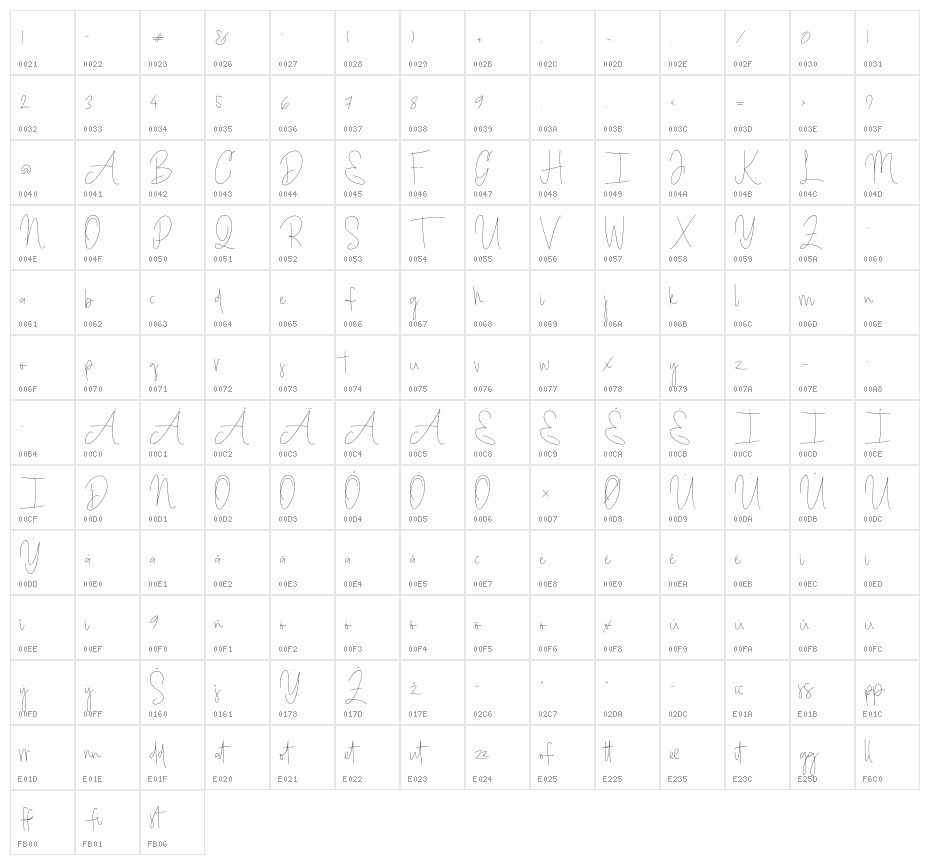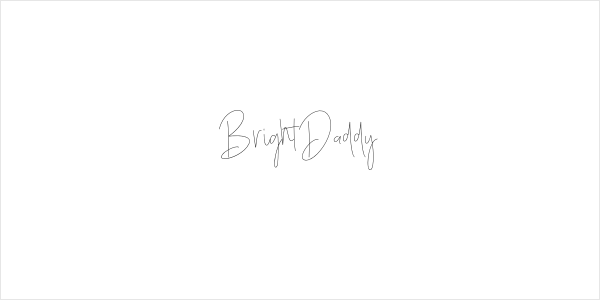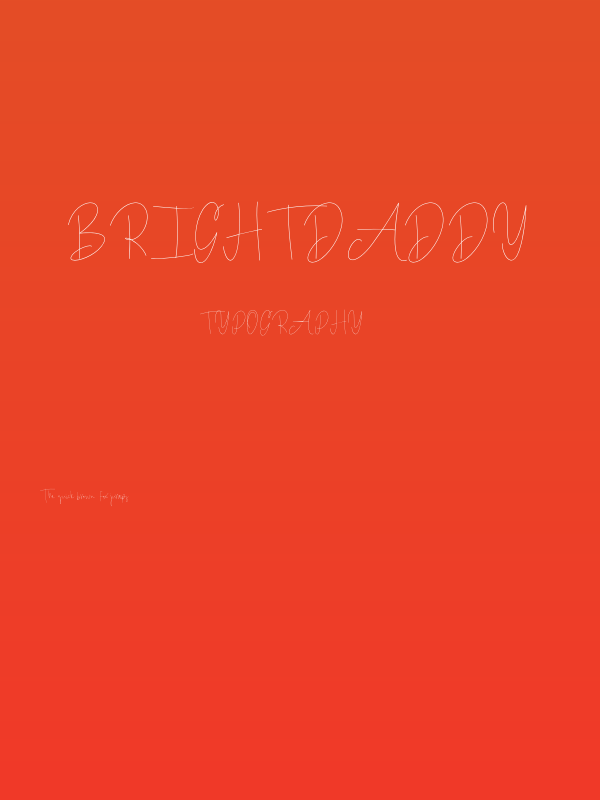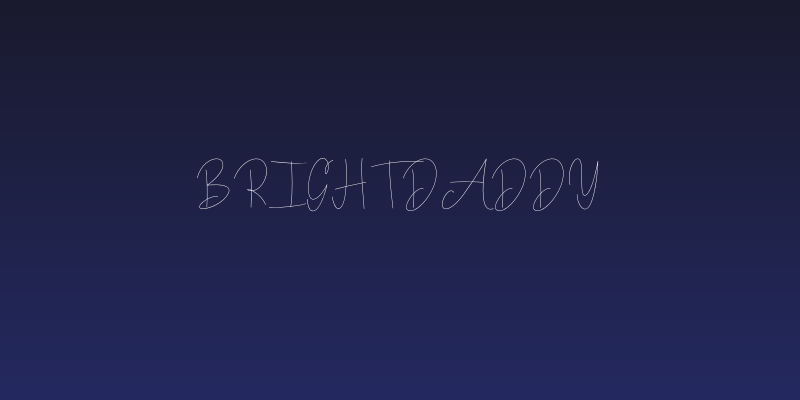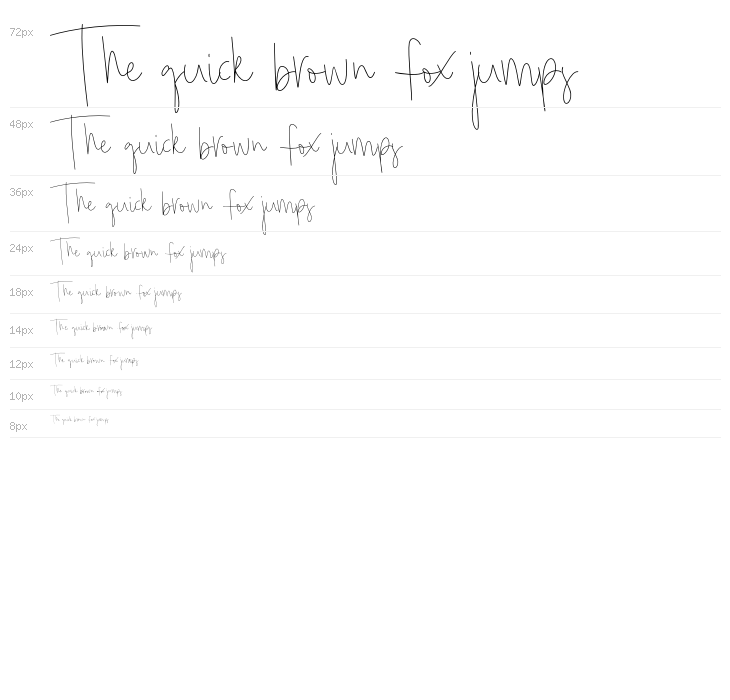
BrightDaddy Font
BrightDaddy Description
This font features a playful, handwritten style with a casual and flowing appearance. The letters are characterized by their elongated and slightly irregular strokes, giving them a whimsical and artistic feel. The uppercase letters are bold and expressive, while the lowercase letters maintain a consistent, yet relaxed form. Numbers and special characters follow the same playful aesthetic, making the font versatile for creative projects. The overall design is light and airy, with a sense of movement and spontaneity.
| Overall Style | Casual, Artistic |
| Use Case | Logos, Invitations, Creative Projects |
| Proposed Projects | Ideal for greeting cards, invitations, personal branding, and creative posters. |